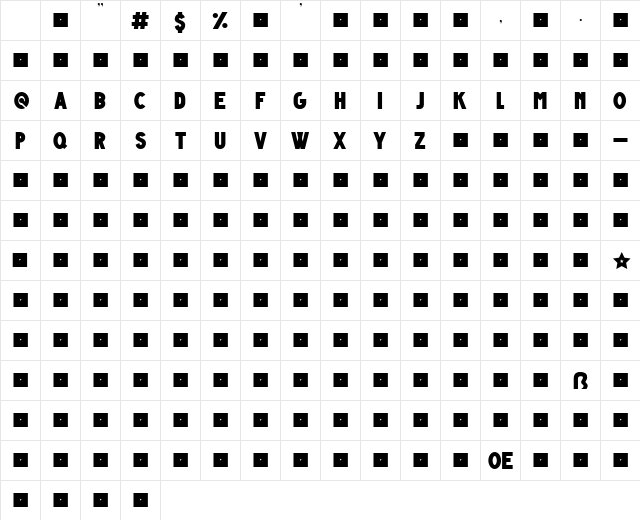
Grande Andretti - limited chars is a composed and adaptable typeface that performs quietly and consistently across a wide range of design contexts. Its bold stroke weight gives it real presence on the page.